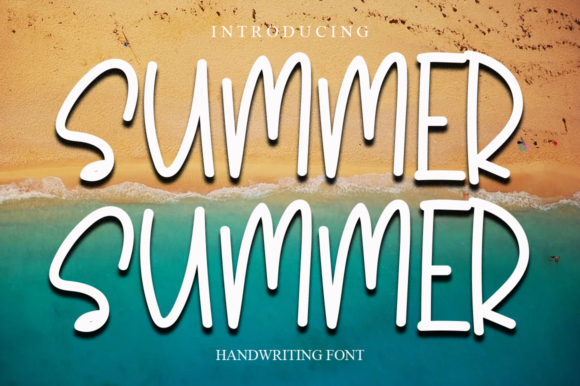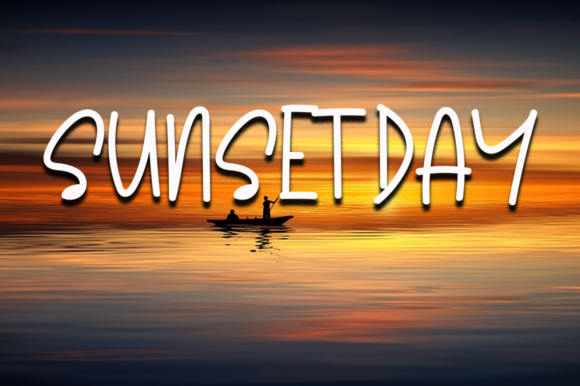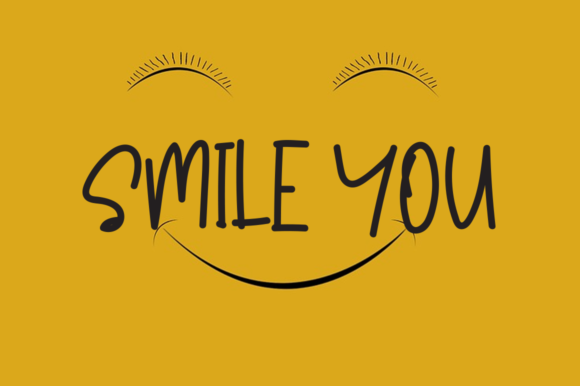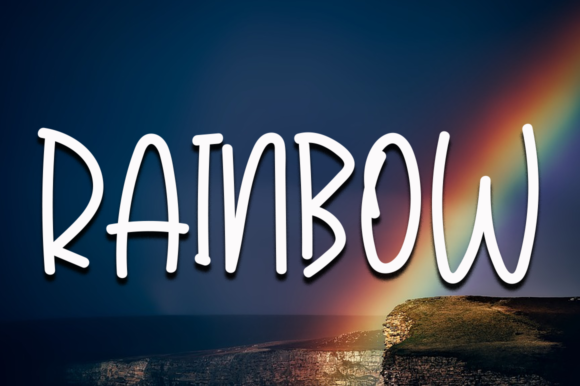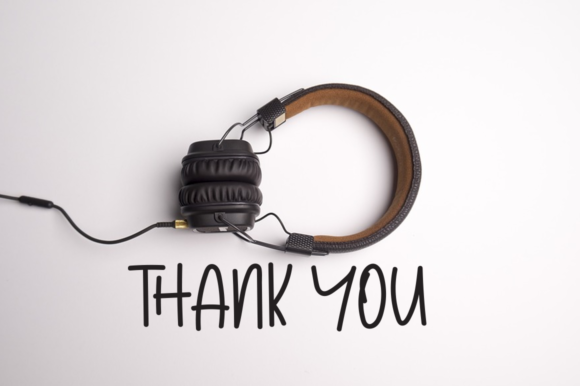
Summer Summer Font
About Summer Summer Font
Summer Summer is a lovely handwritten font that embodies playfulness and authenticity. Add it to your most creative ideas, and notice how it makes them stand out!